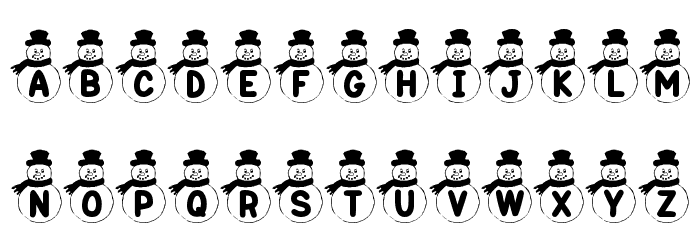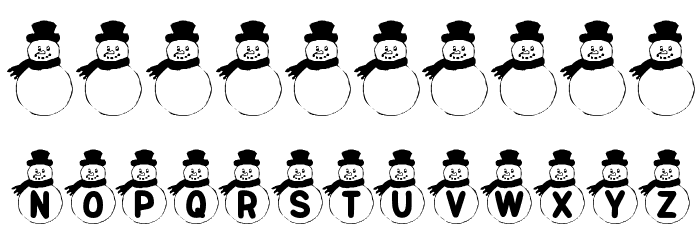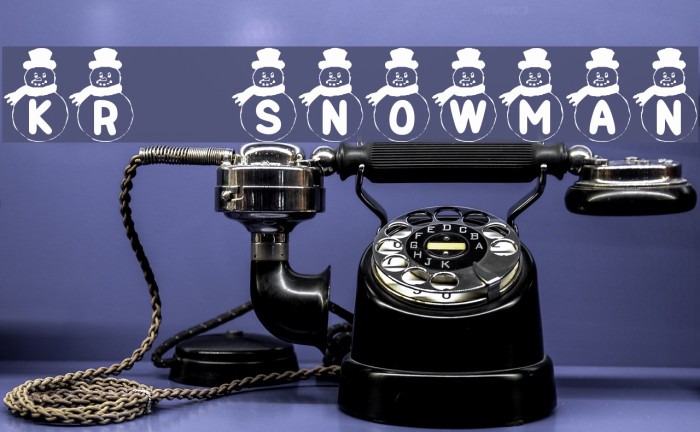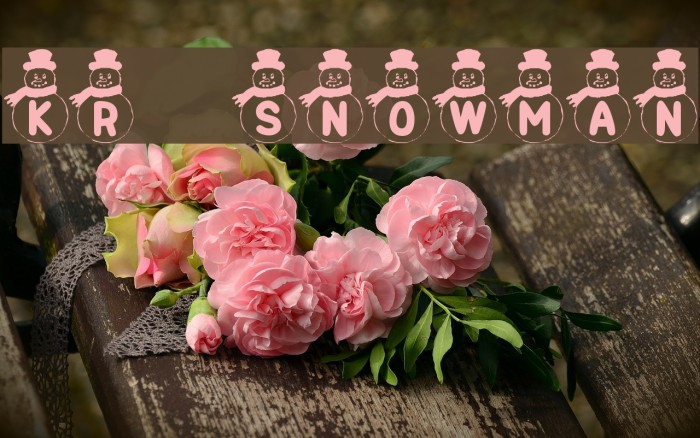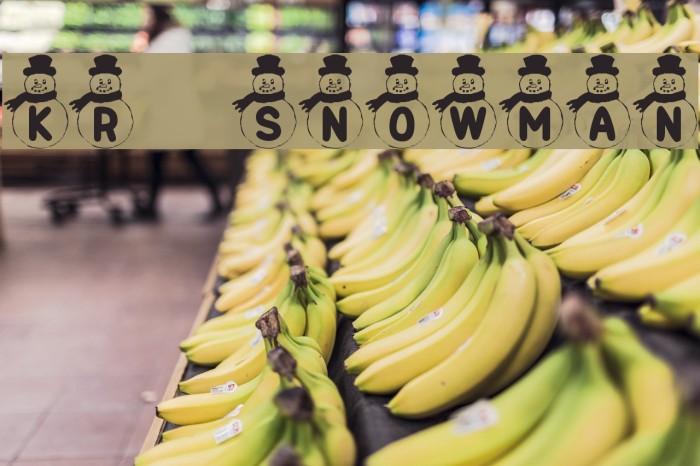
KR Snowman Font
This whimsical font features each character encased within a snowman, complete with a top hat and scarf, adding a playful and festive touch. The letters are bold and rounded, fitting snugly within the snowman's body, creating a cohesive and charming look. The design is consistent across both uppercase and lowercase letters, as well as numbers, maintaining the snowman theme throughout. This font is perfect for holiday-themed projects, offering a unique and eye-catching style that stands out. The playful nature of the font makes it ideal for children's materials, festive invitations, or any project seeking a lighthearted and joyful aesthetic.
A playful, snowman-themed font perfect for festive projects.
- Proposed Projects: Holiday cards, children's books, festive invitations, winter-themed posters.